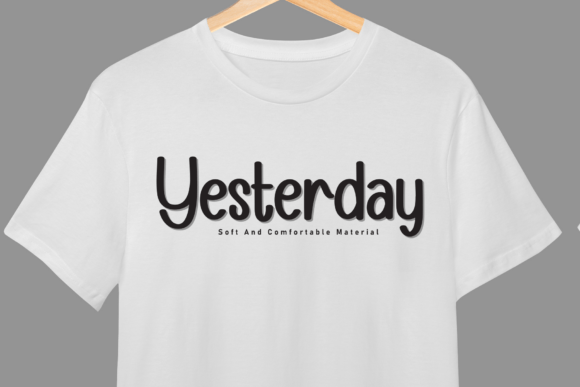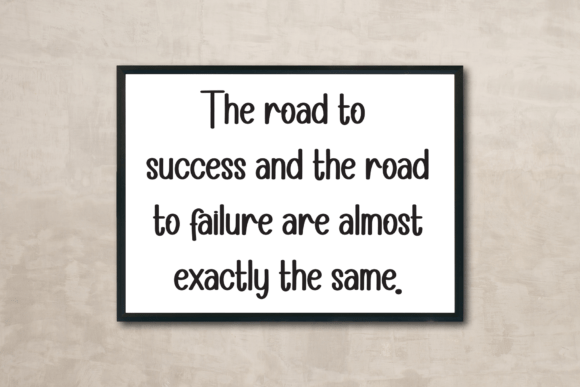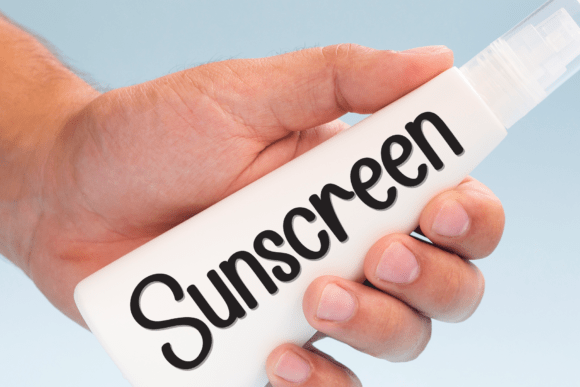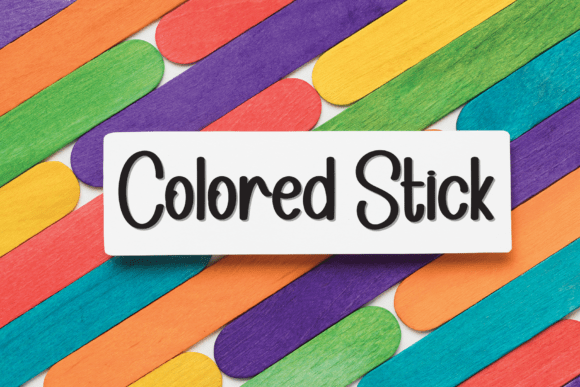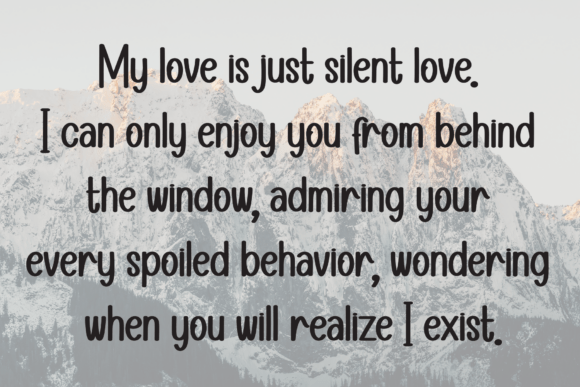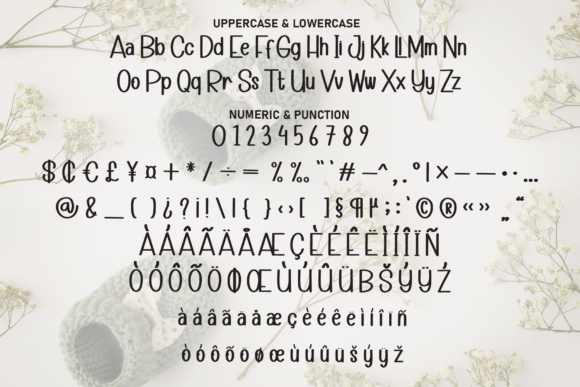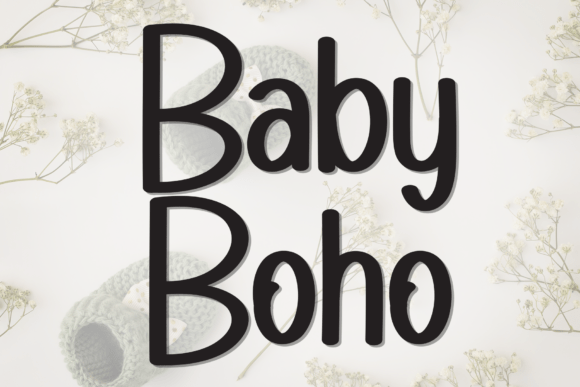
Baby Boho Font: Add a Splash of Joy to Your Designs
Are you looking for a font that can add a playful and whimsical touch to your designs? Look no further than the Baby Boho font! This cheerful and bouncy handwritten font is packed with personality, making it perfect for a variety of design projects. In this article, we’ll take a closer look at the Baby Boho font, its features, and how you can use it to add a splash of joy to your designs.
What is Baby Boho Font?
Baby Boho is a bold and cheerful handwritten font that is designed to bring a fun and casual energy to your designs. Its smooth curves and bold letters make it easy to read and perfect for use in a variety of design projects, from classroom posters and kids’ projects to stickers and greeting cards.
Key Features of Baby Boho Font
So, what makes Baby Boho font so special? Here are some of its key features:
- Cheerful and Bouncy: Baby Boho font has a playful and energetic feel that’s perfect for designs that need a splash of joy.
- Bold Letters: The font’s bold letters make it easy to read and perfect for use in titles, headings, and other design elements.
- Smooth Curves: The font’s smooth curves give it a friendly and approachable feel that’s perfect for designs that need a personal touch.
- Doodle-Like Charm: Baby Boho font has a doodle-like charm that adds a whimsical touch to every design.
- Easy Readability: The font is easy to read, making it perfect for use in designs that need to communicate a message clearly.
Uses of Baby Boho Font
Baby Boho font is a versatile font that can be used in a variety of design projects, including:
- Classroom Posters: Add a playful touch to your classroom posters with Baby Boho font.
- Kids’ Projects: Use Baby Boho font to add a fun and energetic feel to kids’ projects, such as scrapbook pages and craft projects.
- Stickers: Create fun and playful stickers with Baby Boho font.
- Greeting Cards: Add a personal touch to your greeting cards with Baby Boho font.
Tips for Using Baby Boho Font
Here are some tips for using Baby Boho font in your designs:
- Use it in Combination with Other Fonts: Baby Boho font pairs well with other fonts, so don’t be afraid to experiment with different font combinations.
- Play with Colors: Baby Boho font looks great in bright and bold colors, so don’t be afraid to get creative with your color choices.
- Add Graphics and Illustrations: Baby Boho font pairs well with graphics and illustrations, so consider adding them to your designs for added visual interest.
In conclusion, Baby Boho font is a fun and playful font that can add a splash of joy to your designs. Its bold letters, smooth curves, and doodle-like charm make it perfect for use in a variety of design projects, from classroom posters and kids’ projects to stickers and greeting cards. With its easy readability and friendly feel, Baby Boho font is a great choice for designers and crafters who want to add a personal touch to their designs.